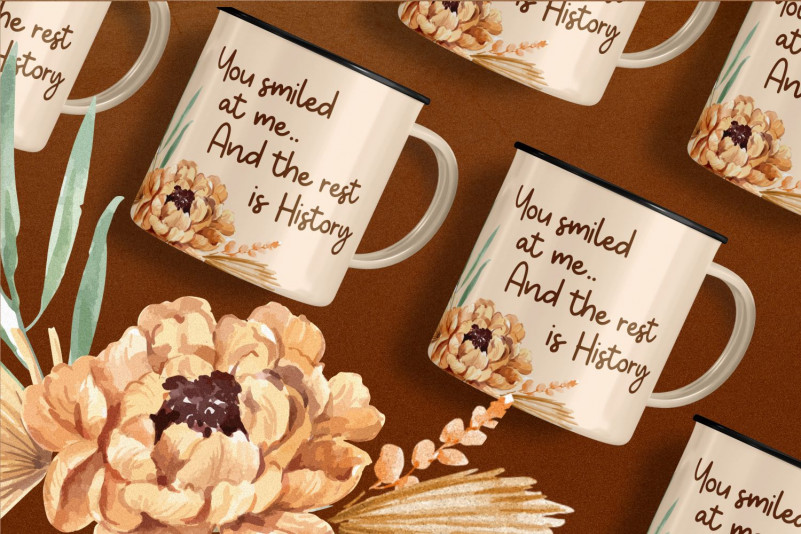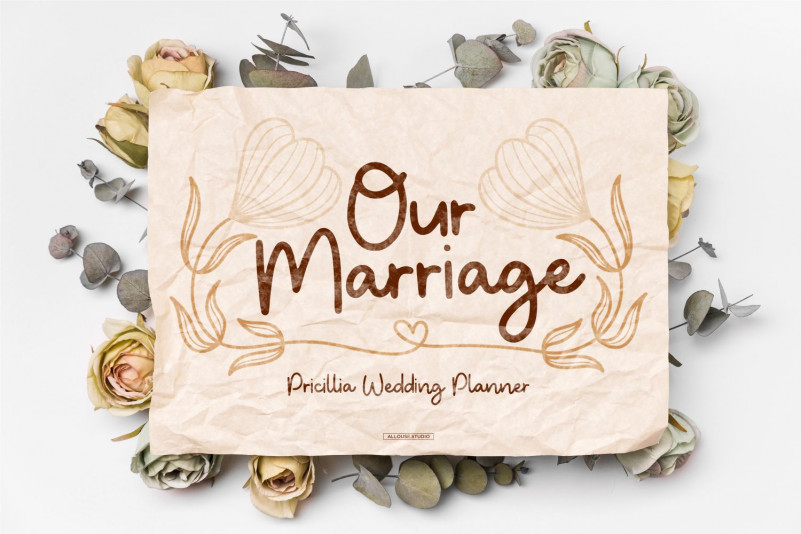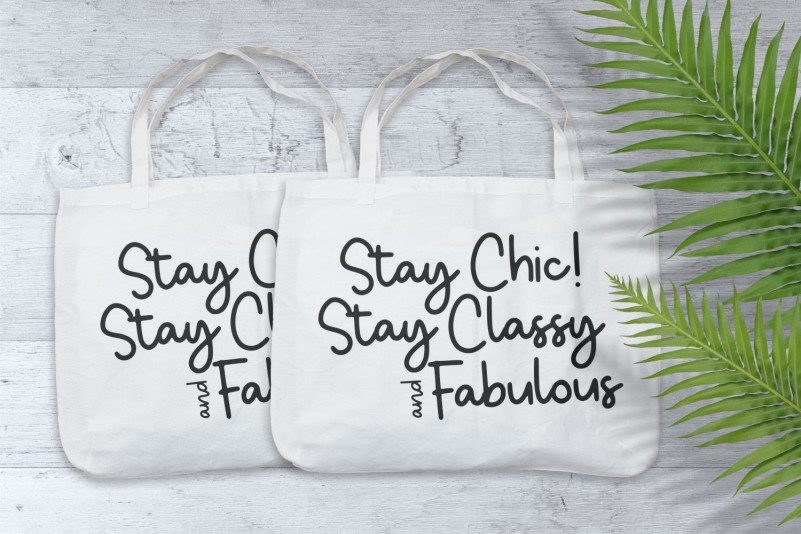
Uhudscript Font
Uhudscript Handwritten Font
Is a lovely and delicate script font that exudes elegance and class. This font was particularly crafted for those who need a beautiful and refreshing look to their designs.